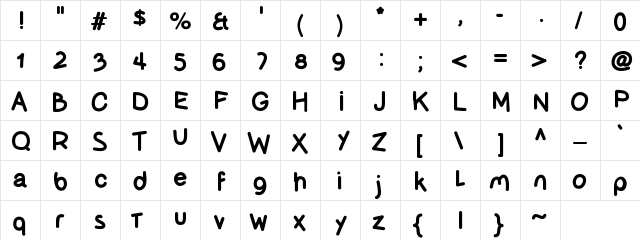
OlivessansPimientoBold Bold
Design Context for OlivessansPimientoBold Typeface
OlivessansPimientoBold is a composed and adaptable typeface that performs quietly and consistently across a wide range of design contexts. Its bold stroke weight gives it real presence on the page.
Pro Tip: Use OlivessansPimientoBold in both headline and body roles to test its range before committing to a single application.